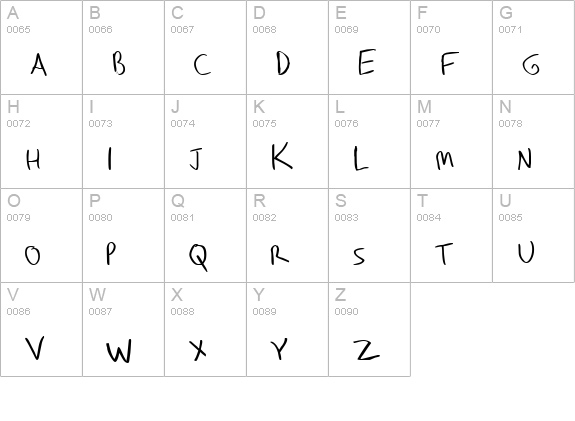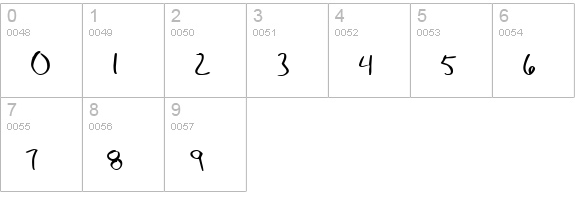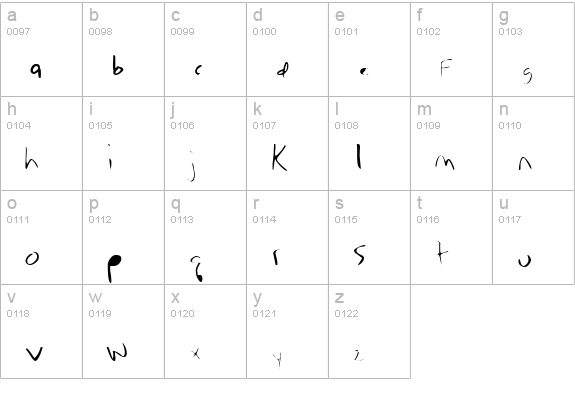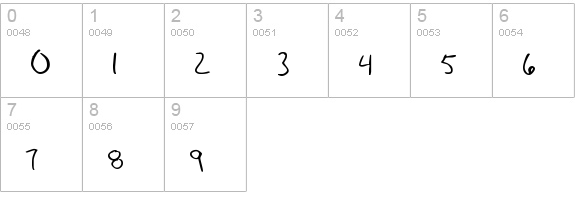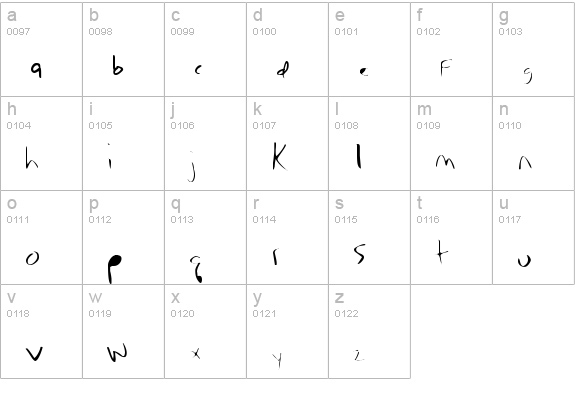
Introducing AndyHand font, a charming and versatile typeface that exudes creativity and personality. With its hand-drawn style and playful curves, AndyHand is perfect for adding a unique touch to your projects. This free font offers a wide range of characters, making it suitable for various design purposes such as logos, posters, branding, and more. AndyHand font is freely available to download at FontsMarket.com, where you can easily access this delightful typeface and enhance your designs with its distinct and engaging appearance. Embrace the whimsical charm of AndyHand font and let your creativity shine through in every project you create.